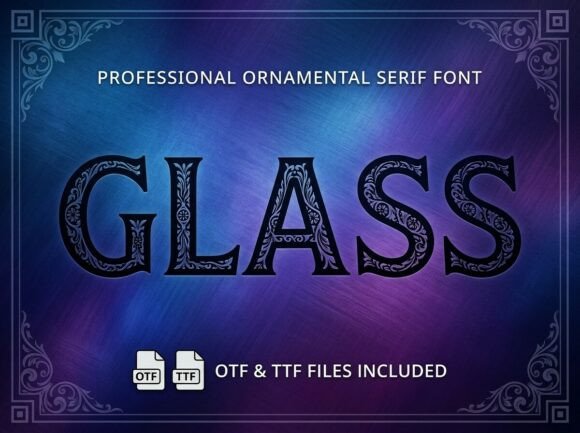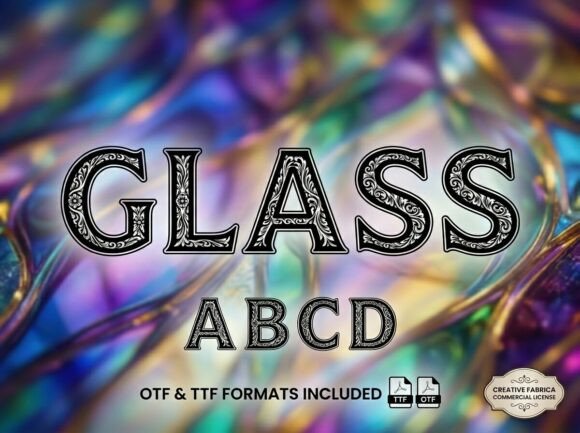
Introducing Glass Font: Elevate Your Designs with Luxurious Elegance
Step into a realm of breathtaking optical luxury with Glass, a premium display font that embodies the fine craftsmanship of crystal sculpture and classic Victorian engraving. This high-impact typeface is designed to add a touch of sophistication and elegance to your graphic layouts, making it perfect for premium branding campaigns, high-end spirit bottle labels, luxury cosmetics logotypes, historical fiction book covers, and theatrical movie titles.
The Craftsmanship of Glass Font
Glass Font structures heavy, bold serif letterforms out of a hyper-realistic, volumetric translucent glass medium that catches and refracts spectral rainbow light leaks. The inner core of each character is meticulously detailed with an ornate, hand-sculpted silver baroque filigree and swirling floral scrollwork, creating an incredible tactile depth. This level of detail and craftsmanship is what sets Glass Font apart from other display fonts, making it a truly exceptional match for designers and crafters looking to add a sense of unyielding professional prestige and legendary heirloom beauty to their work.
Design Features of Glass Font
Glass Font boasts a range of design features that make it perfect for high-end applications. Some of its key features include:
- Hyper-realistic glass medium: The font’s hyper-realistic glass medium gives it a lifelike appearance that is sure to capture the attention of your audience.
- Ornate silver baroque filigree: The intricate details of the font’s silver baroque filigree add a level of sophistication and elegance to each character.
- Spectral rainbow light leaks: The font’s ability to catch and refract spectral rainbow light leaks adds a touch of magic and wonder to your designs.
- Tactile depth: The font’s volumetric design creates a sense of tactile depth, making it perfect for applications where texture and dimension are key.
Applications for Glass Font
Glass Font is an incredibly versatile typeface that can be used in a wide range of applications, including:
- Premium branding campaigns: Add a touch of luxury and sophistication to your brand’s identity with Glass Font.
- High-end spirit bottle labels: Make your spirit bottle labels stand out with the elegance and refinement of Glass Font.
- Luxury cosmetics logotypes: Add a sense of high-end quality and sophistication to your cosmetics brand with Glass Font.
- Historical fiction book covers: Transport your readers to another era with the classic, elegant feel of Glass Font.
- Theatrical movie titles: Add a touch of drama and spectacle to your movie titles with Glass Font.
Why Choose Glass Font?
So why choose Glass Font for your next design project? Here are just a few reasons:
- Unparalleled elegance: Glass Font is the epitome of elegance and sophistication, making it perfect for high-end applications.
- Attention to detail: The font’s intricate details and craftsmanship are unmatched, making it a truly exceptional choice for designers and crafters.
- Versatility: Glass Font can be used in a wide range of applications, from branding and packaging to book covers and movie titles.
- Professional prestige: Add a sense of unyielding professional prestige to your designs with Glass Font.
In conclusion, Glass Font is a premium display font that is sure to elevate your designs to new heights. With its hyper-realistic glass medium, ornate silver baroque filigree, and spectral rainbow light leaks, Glass Font is the perfect choice for designers and crafters looking to add a touch of luxury and sophistication to their work. Whether you’re working on a premium branding campaign, a high-end spirit bottle label, or a historical fiction book cover, Glass Font is the perfect choice.